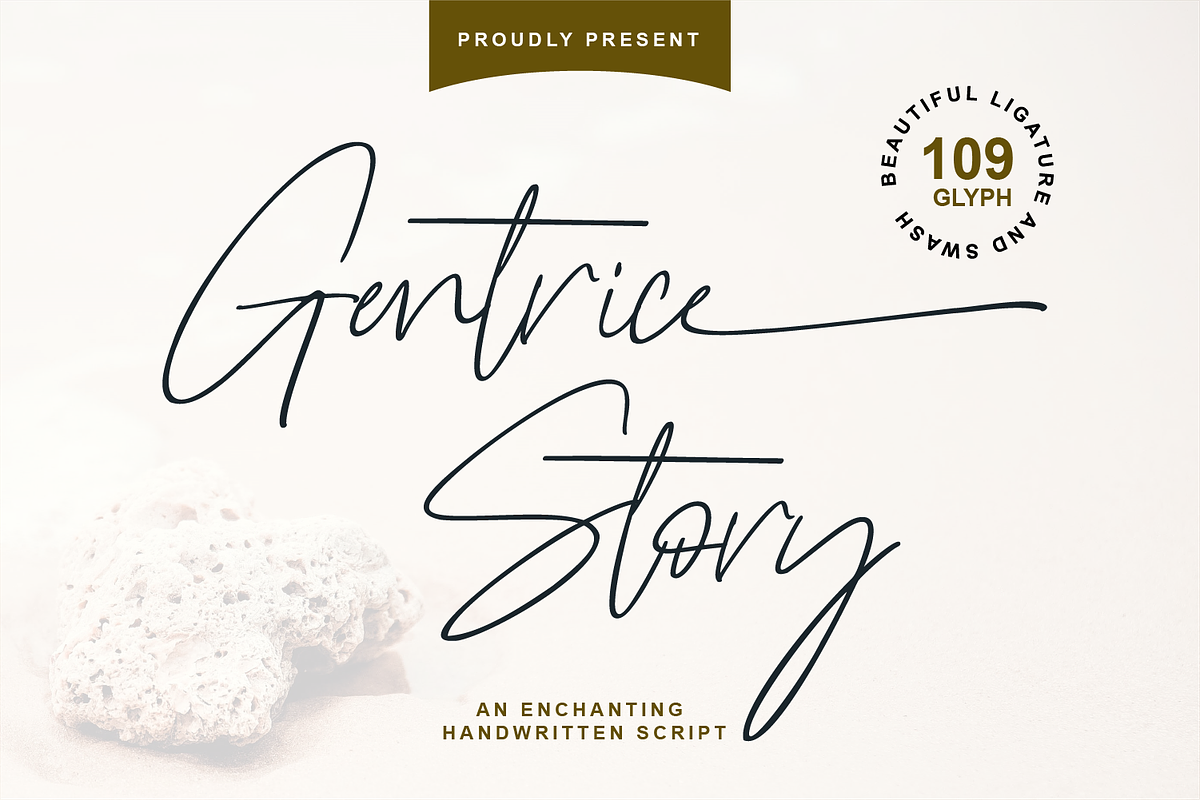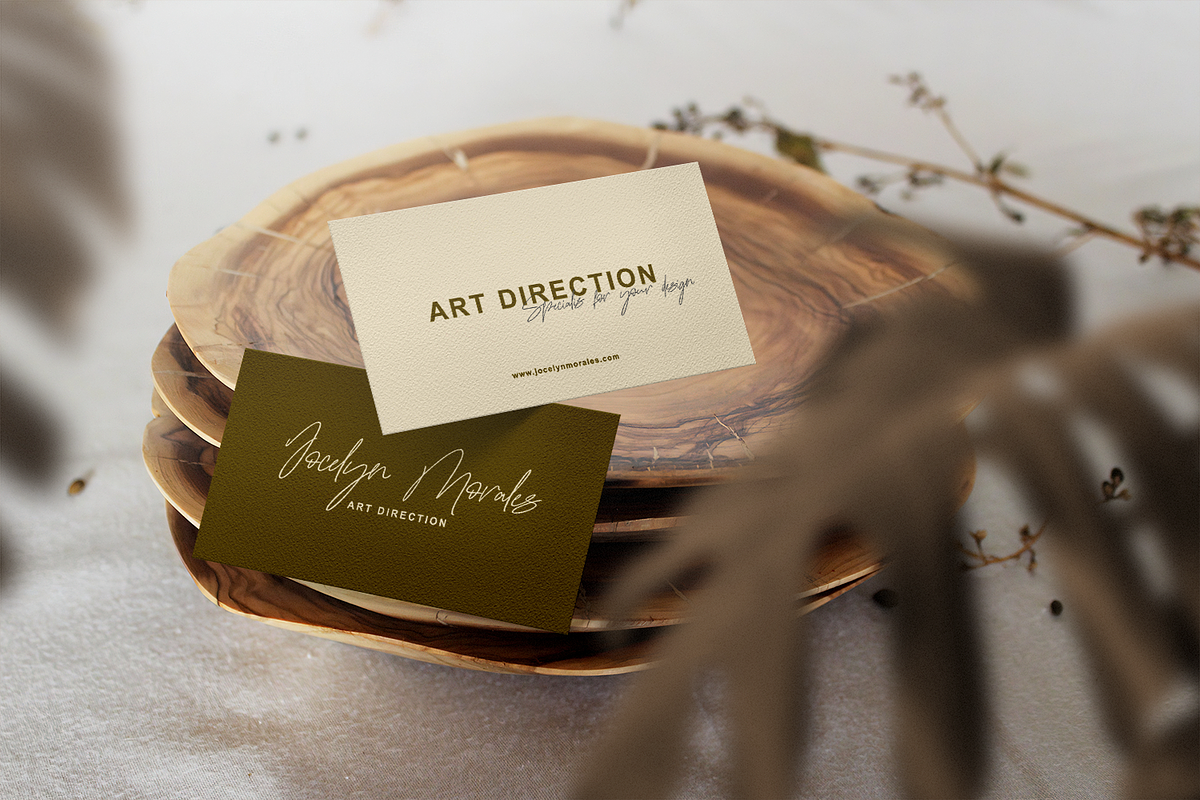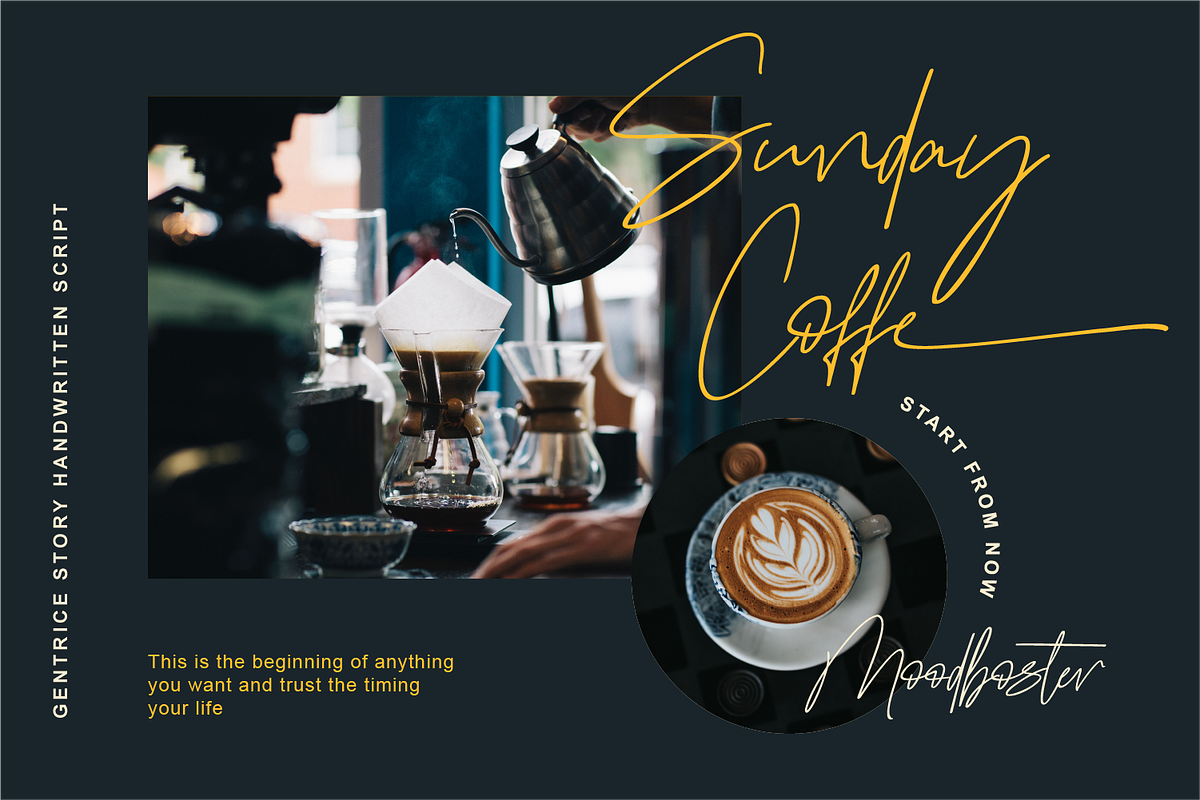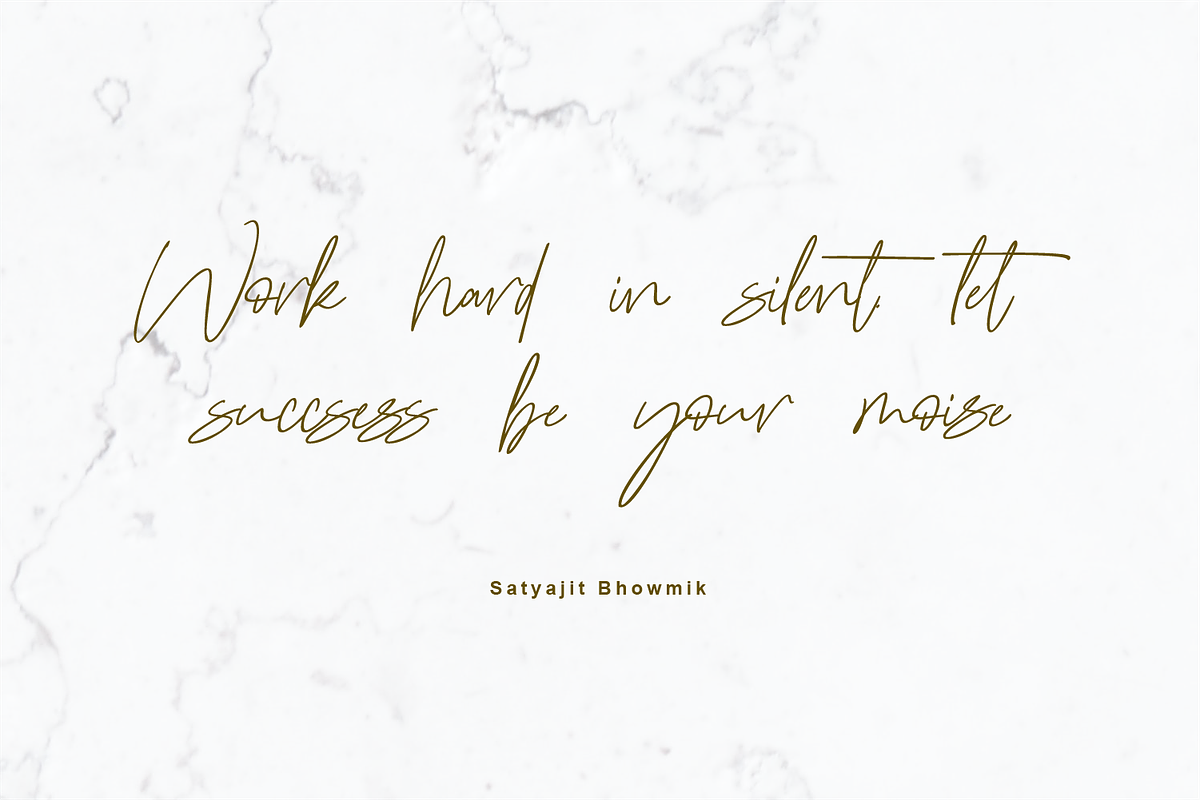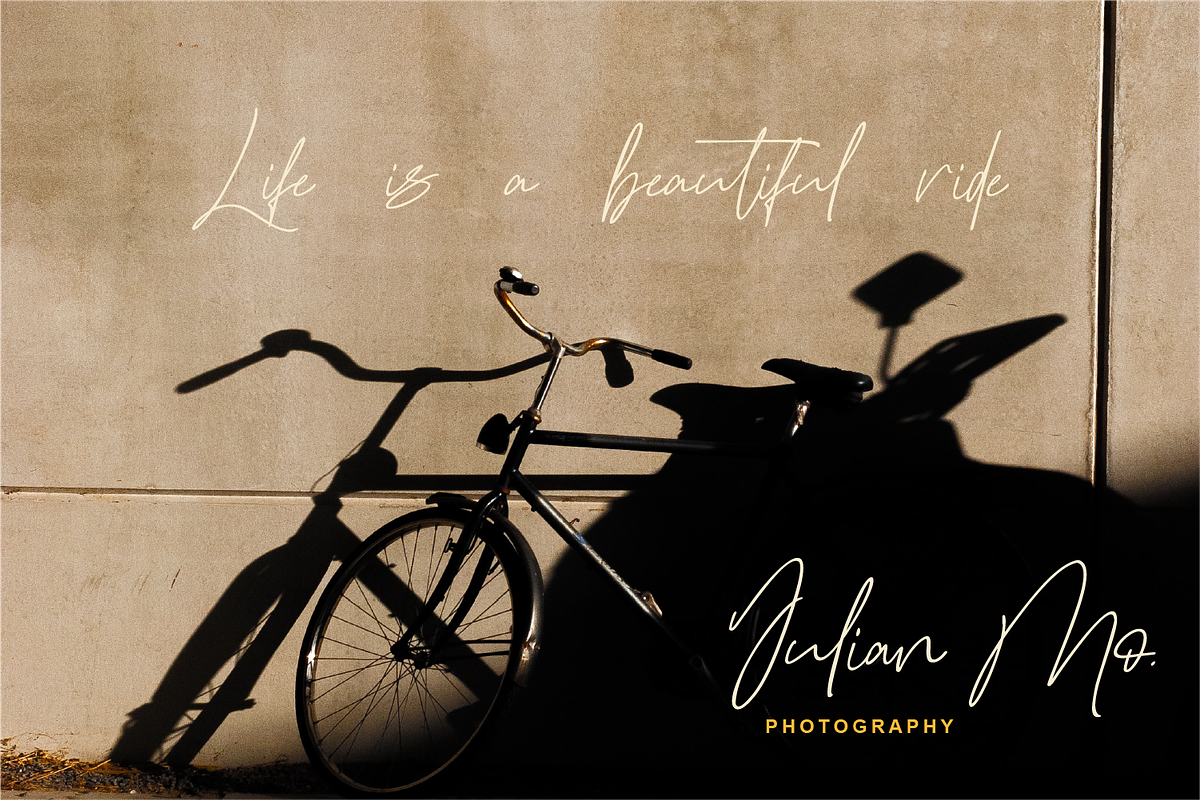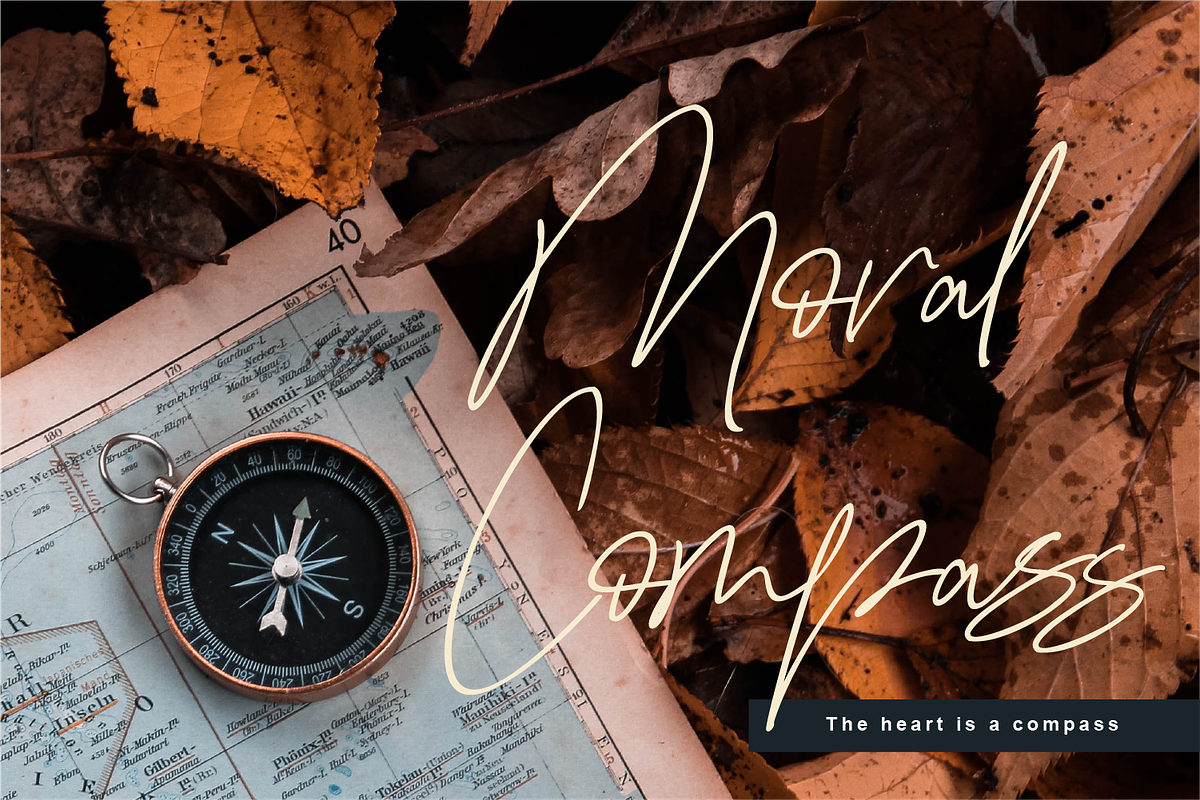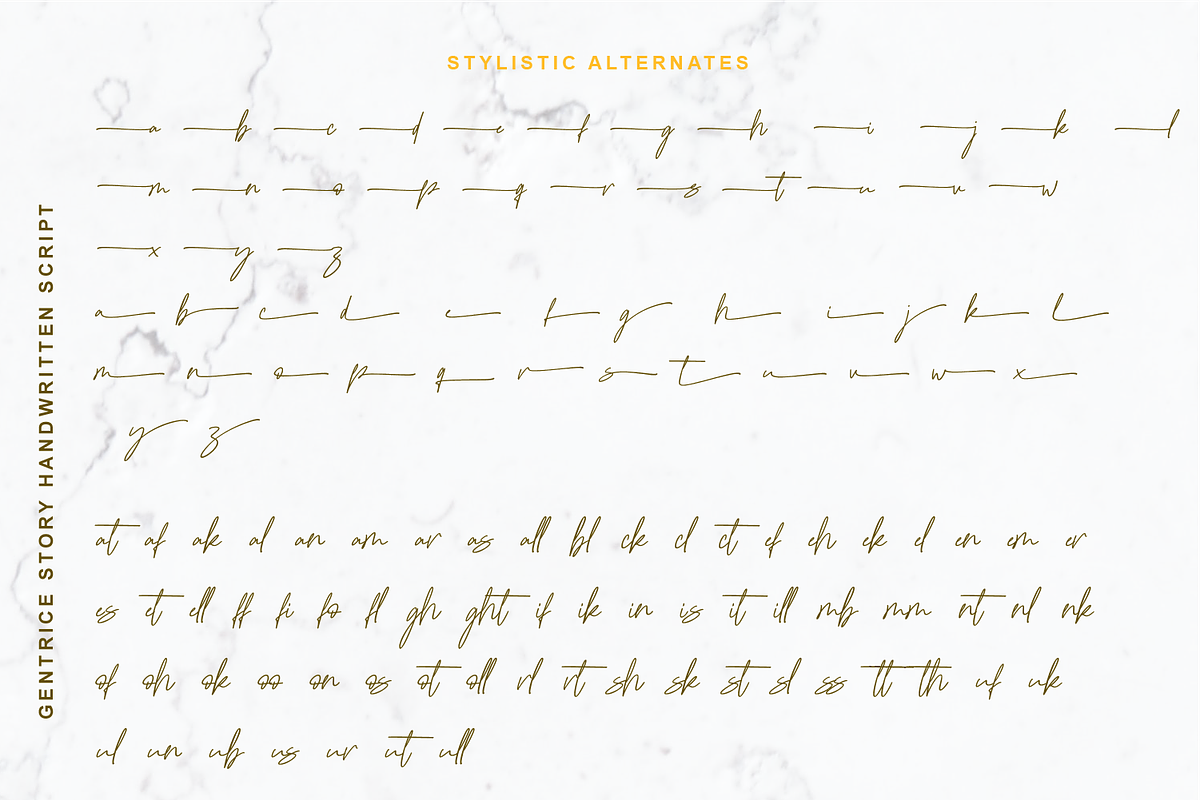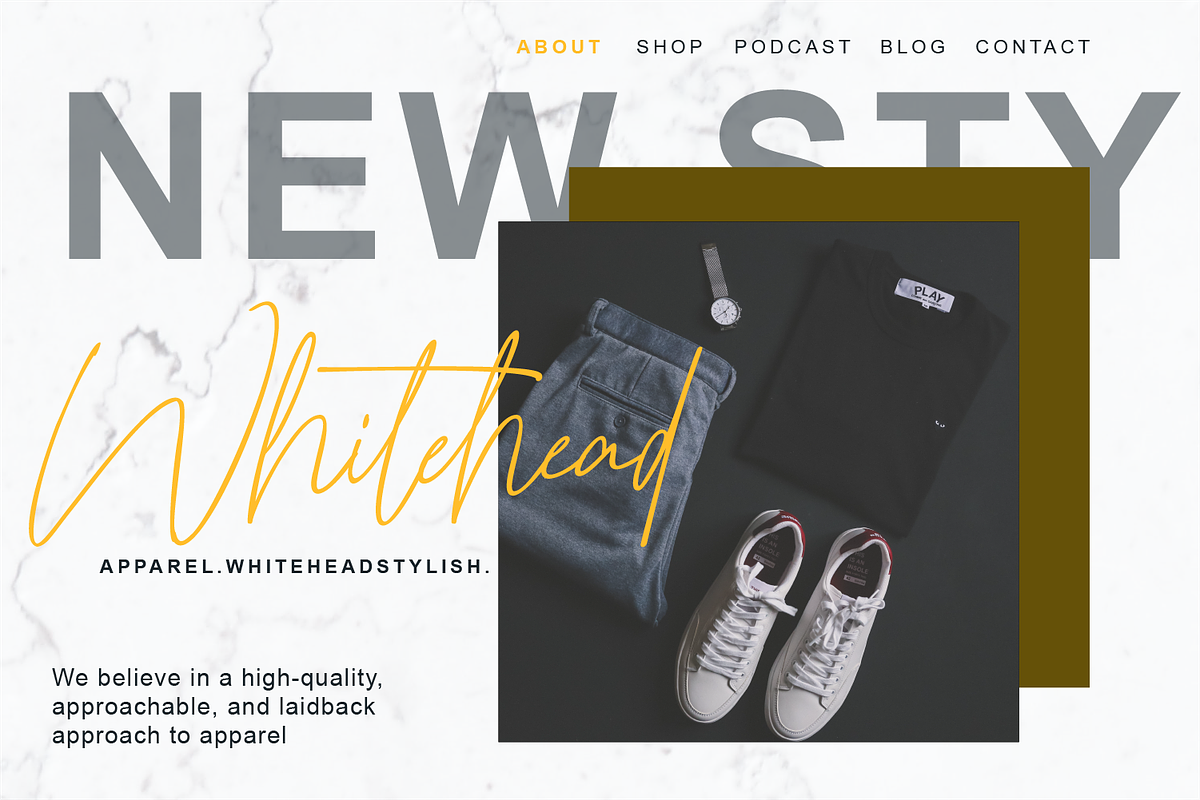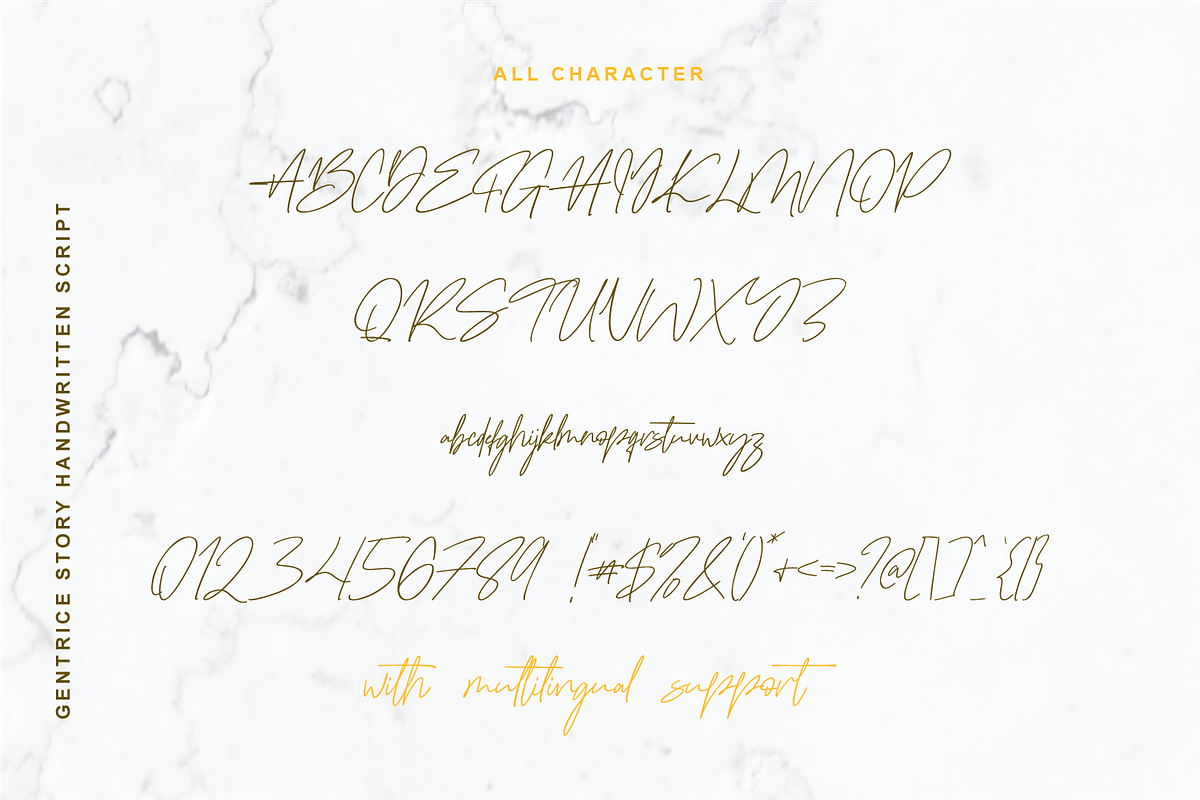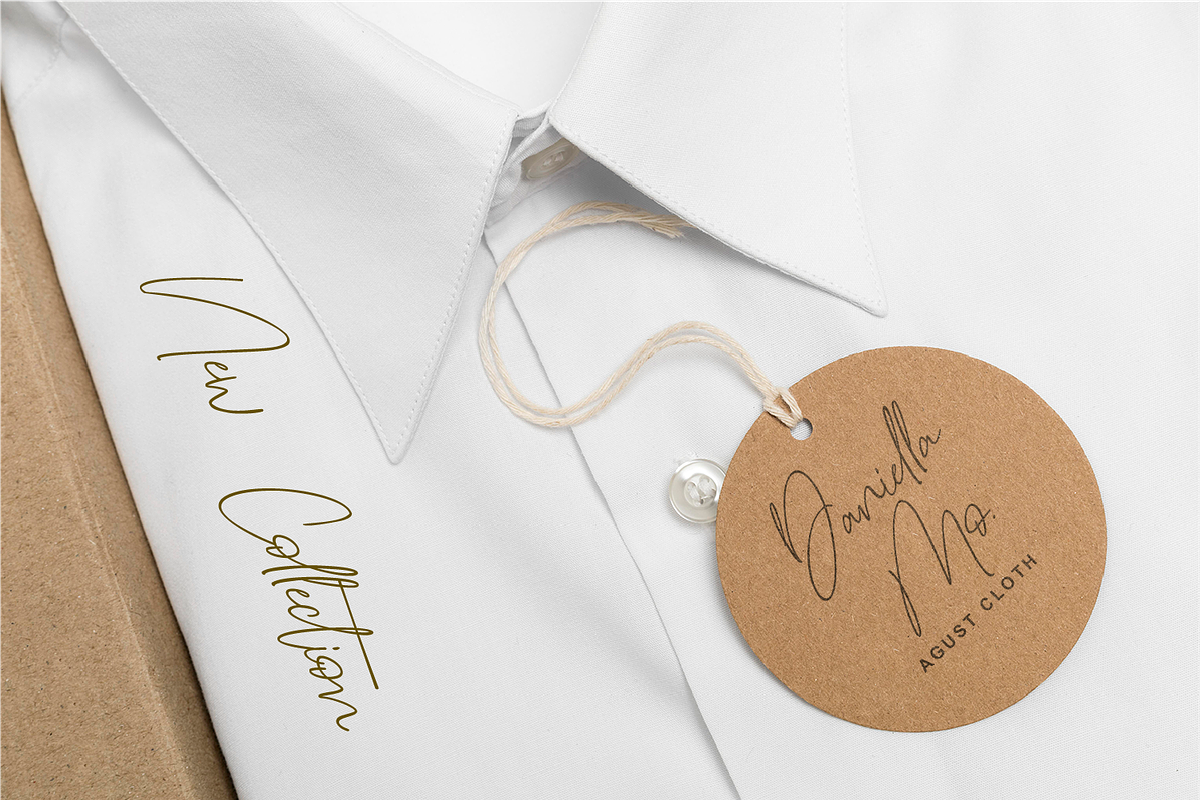
Gentrice Story - Handwritten Script
Gentrice Story - An Enchantinf Handwritten Script
Gentrice Story is an enchantinf handwritten script. I made it with a sense of elegant,professional, and unique. You can create custom personal signature,create custom logo,so this amazing signature for you all.Gentrice Story comes with multilingual support as well.